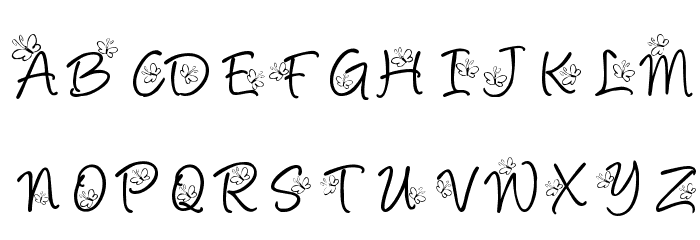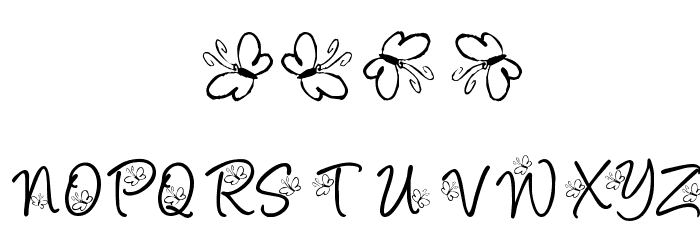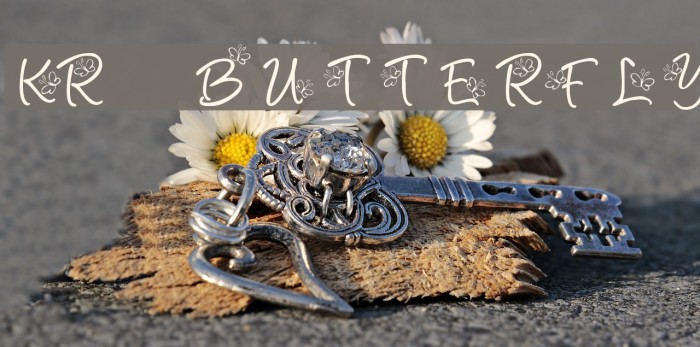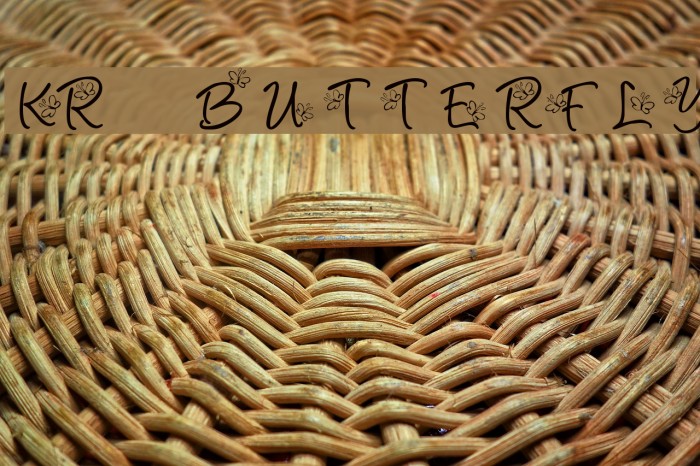
KR Butterfly Font
This whimsical and decorative font features playful butterfly motifs integrated into each character, creating a unique and artistic style. The letters are designed with a flowing, cursive-like script that adds a sense of elegance and charm. The butterflies are delicately placed, enhancing the overall aesthetic without overwhelming the letterforms. This font is perfect for projects that require a touch of nature-inspired creativity and a lighthearted feel.
A decorative font with butterfly motifs and a cursive-like style.
- Proposed Projects: Ideal for greeting cards, invitations, children's book covers, and whimsical branding projects.
- Use Case: Logos, Headlines, Artistic projects